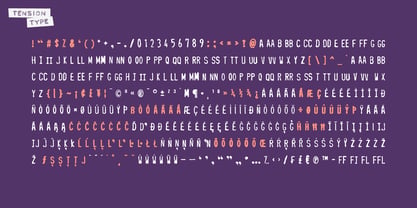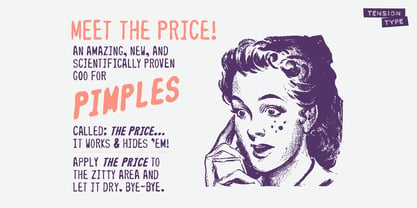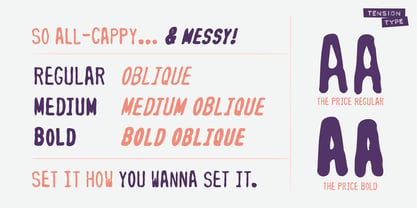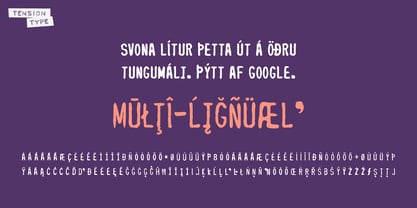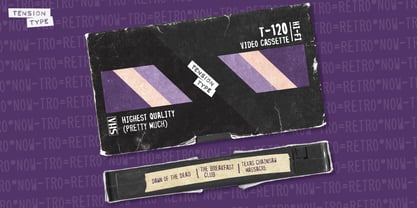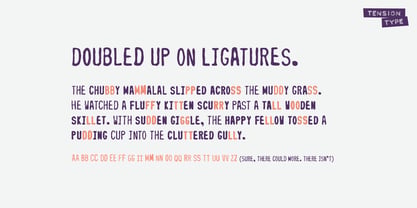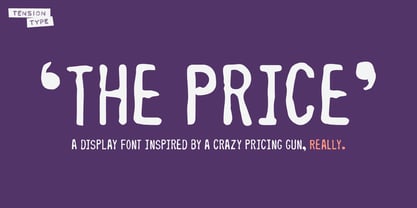
The Price
by Tension Type
The The Price Font Family was designed by Michael Tension and published by Tension Type. The Price contains 6 styles and family package options. More about this family
The Price design is based on the characters used on a pricing gun I found in a thrift store. It had a bunch of interesting shapes. The ink was extremely runny, which made the letters very distorted when stamped. It contained most of the basic alphabet in capitals, a bunch of currency and 0 through 9. The rest I had to make up to complete this font. A great piece of work for the right display job.
Designers: Michael Tension
Foundry: Tension Type